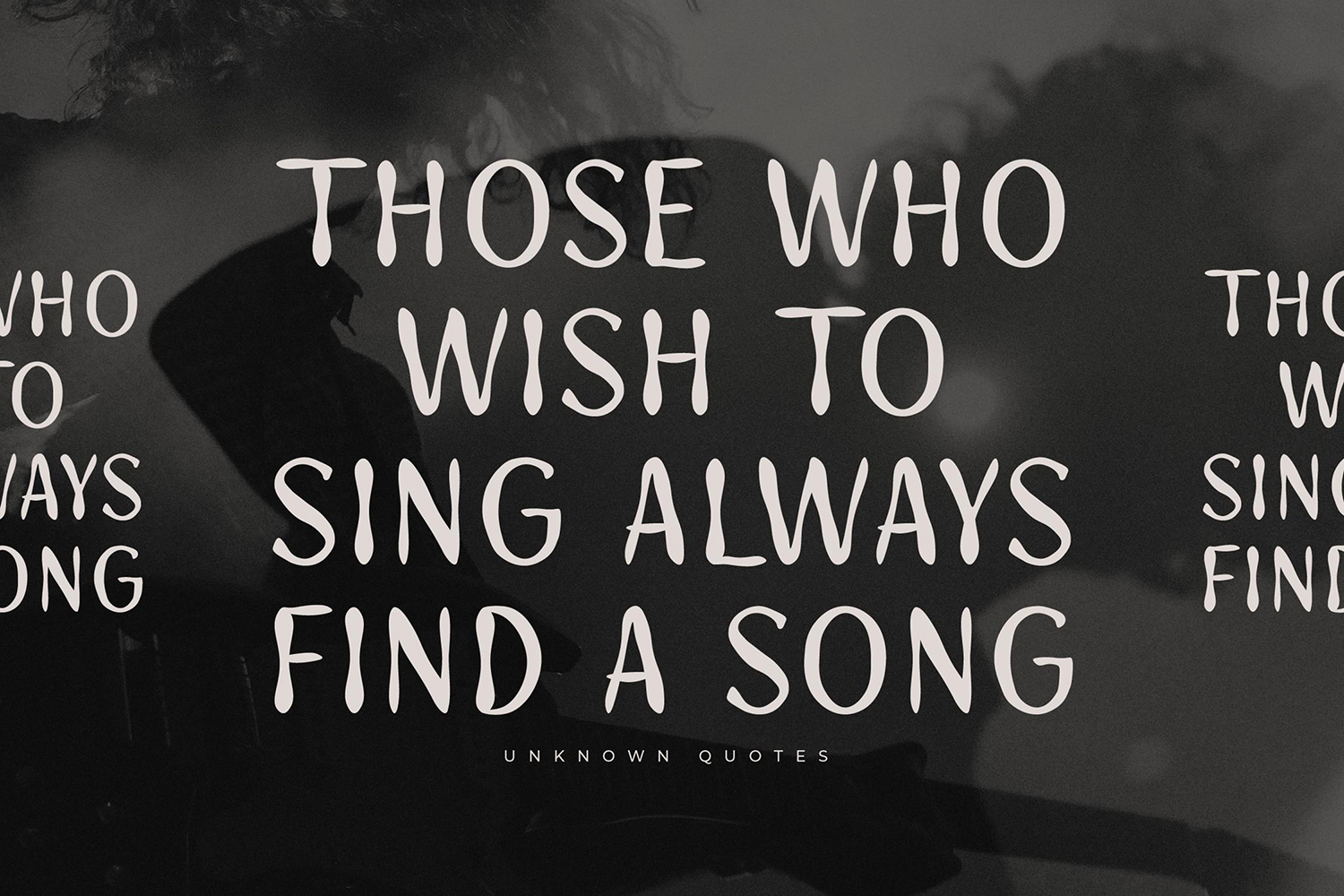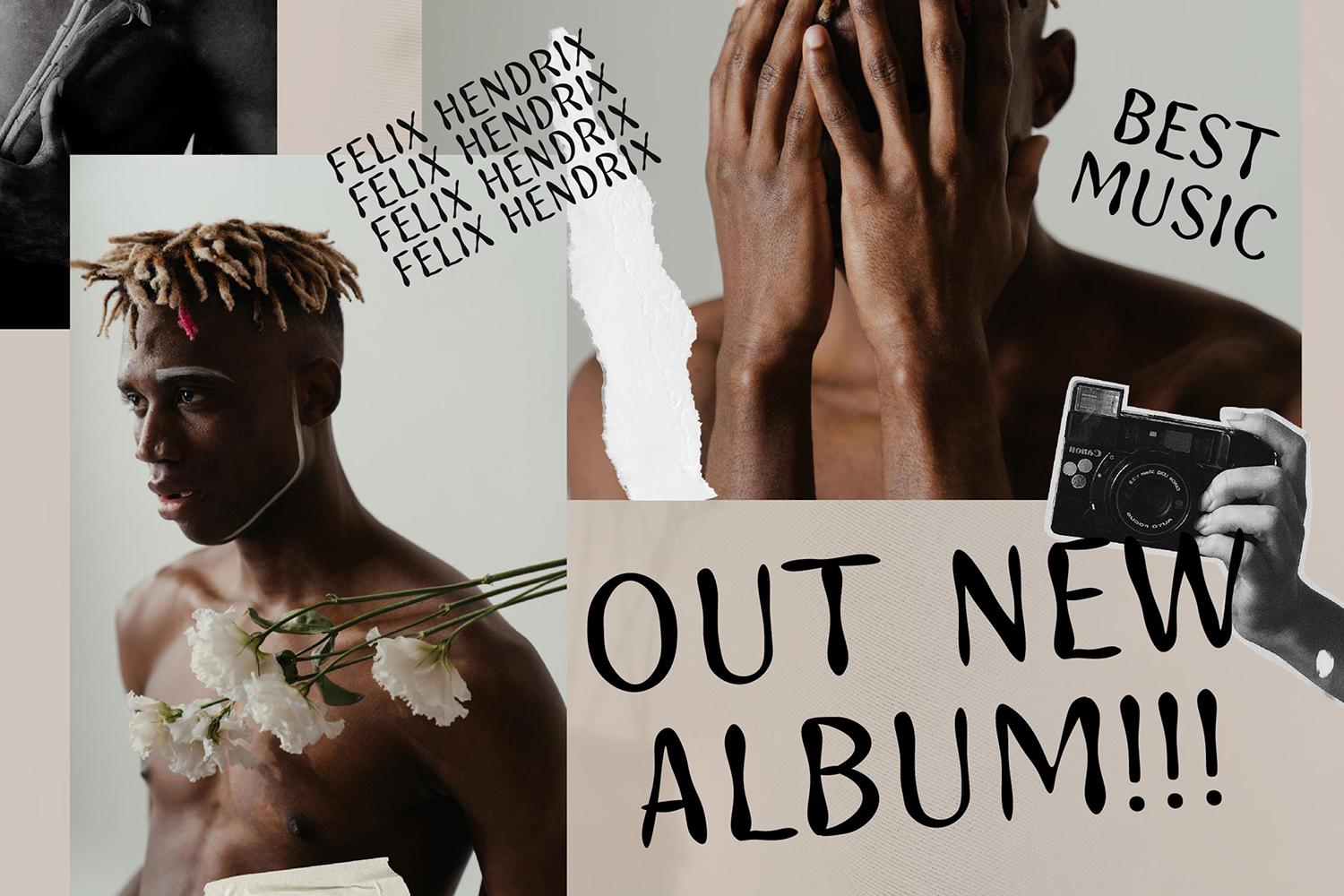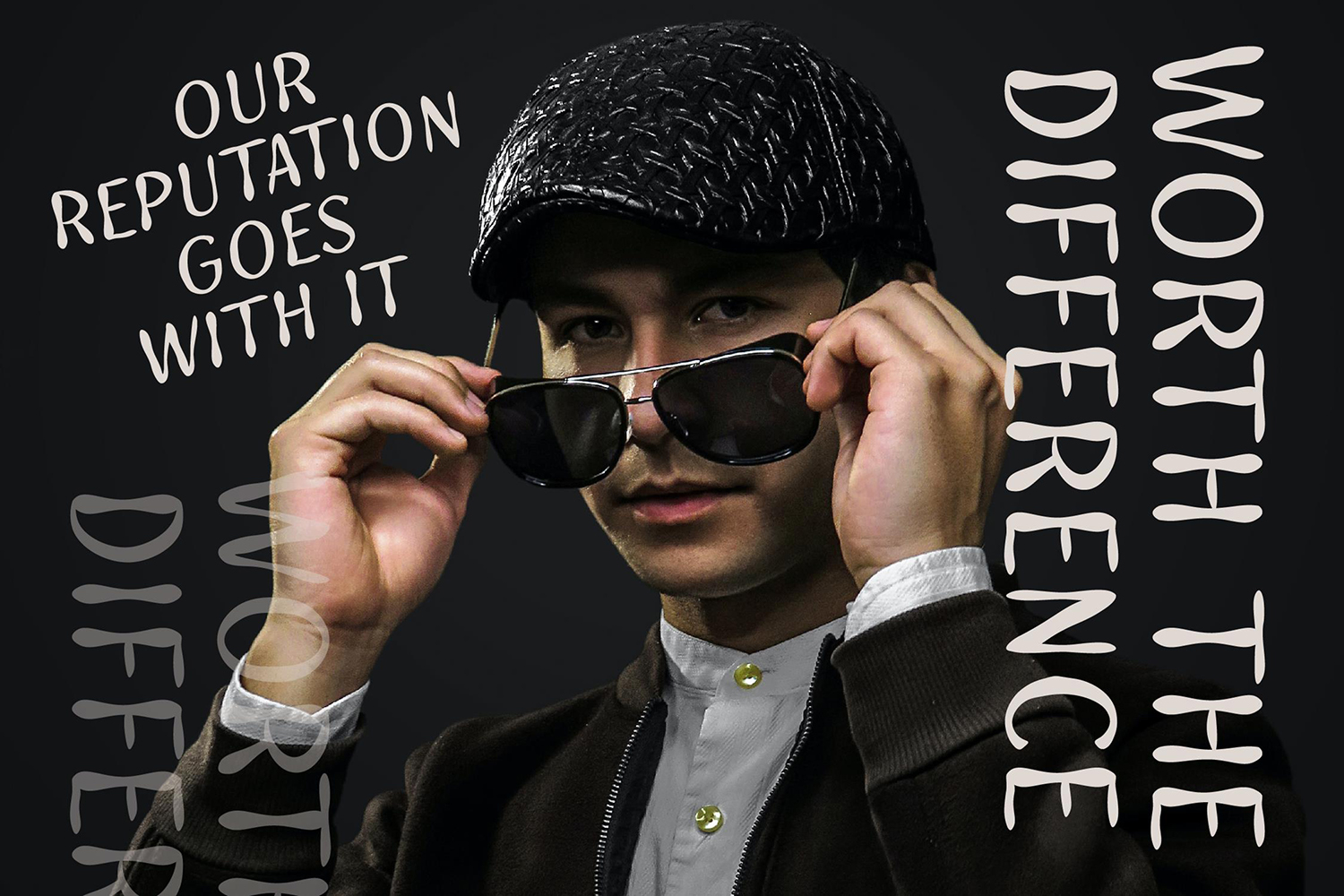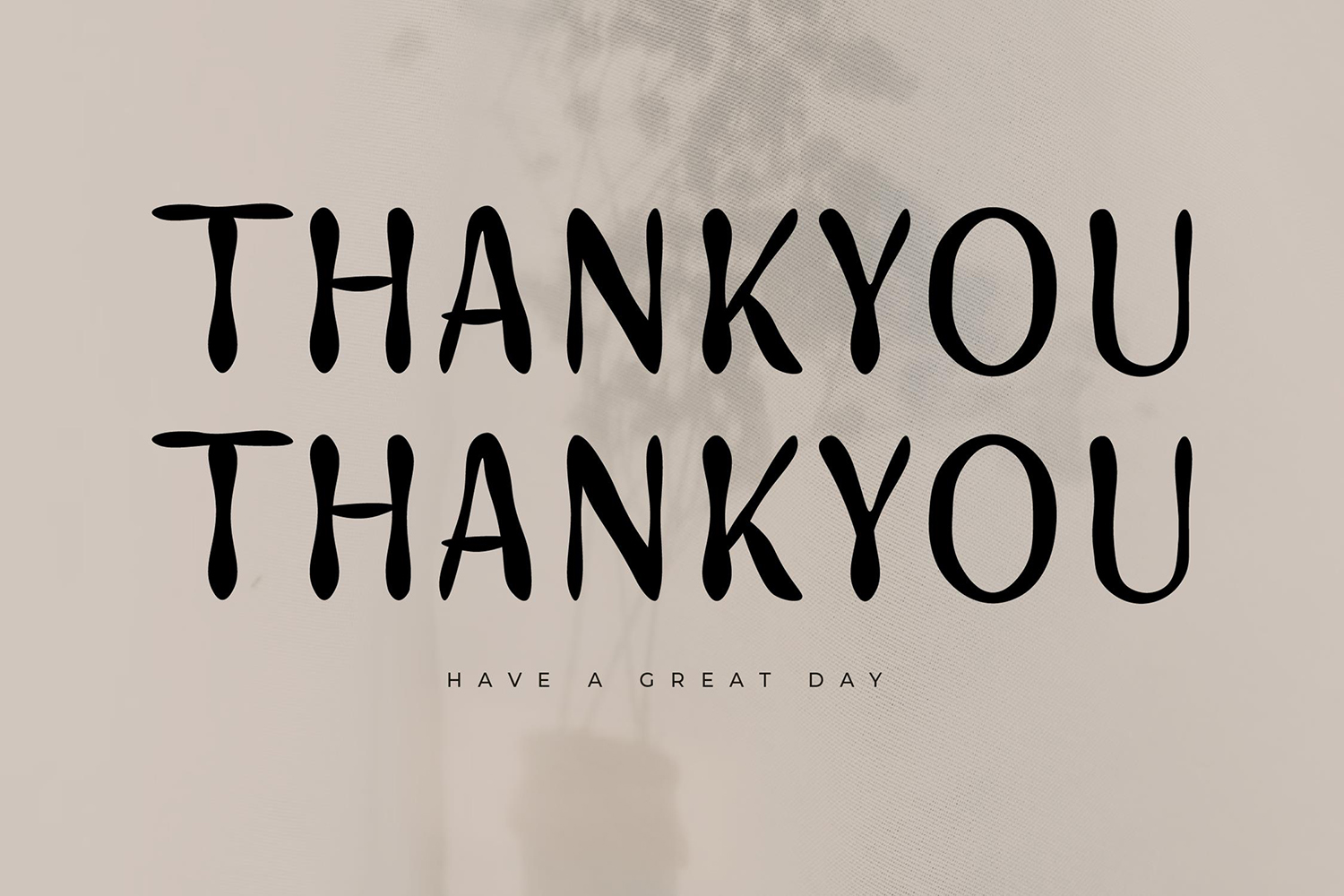
Monotime Free Font
Monotime Free Font is a playful and modern display font with a unique style. This typeface is perfect for an elegant & luxury logo, book or movie title design, fashion brand, magazine, clothes, lettering, quotes, and so much more. This free typeface was designed by a talented Storytype Studio. If you like it don’t forget to check out the full version.